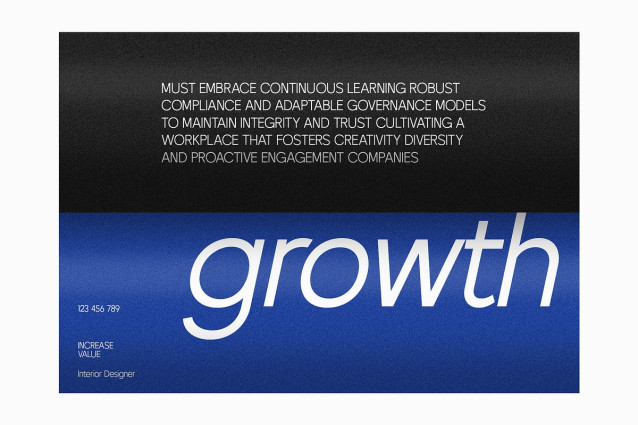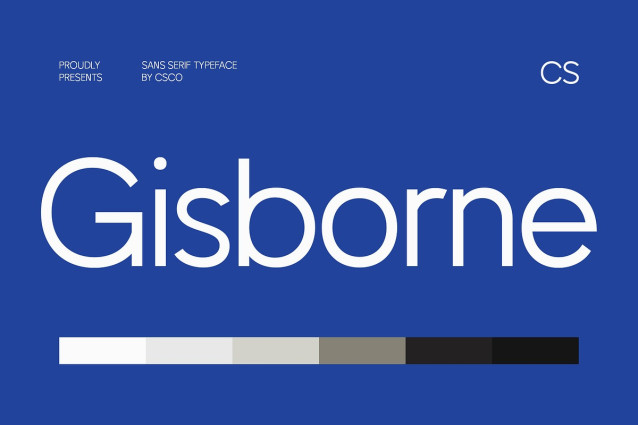
CS Gisborne Font
CS Gisborne Font is a modern sans serif font characterized by its clean, geometric structure and sharp, precise detailing. Designed with clarity and visual balance in mind, it offers a polished and professional appearance that reflects confidence, order, and sophistication.
Structured for Strength and Versatility With its consistent proportions and thoughtfully crafted forms, CS Gisborne exudes a sense of trustworthiness and control—making it an ideal typographic choice for corporate identities, tech platforms, and modern branding. Every letterform is meticulously shaped to ensure legibility and cohesion across applications.
Ideal for Modern Communication Whether used for logos, presentations, UI/UX design, or editorial layouts, this font supports strong visual messaging with an efficient and elegant aesthetic. Its geometric design lends a sense of modernity, while its subtle detailing ensures it remains approachable and readable at all sizes.
A Timeless Professional Look CS Gisborne blends modern minimalism with refined sharpness, offering a reliable and contemporary style that stands the test of time. CS Gisborne doesn’t shout; it speaks with calm authority. Perfect for presentations, corporate reports, packaging, or clean UI design, this typeface helps deliver information with clarity, elegance, and impact. It is a versatile tool for designers seeking a typeface that balances form and function seamlessly.